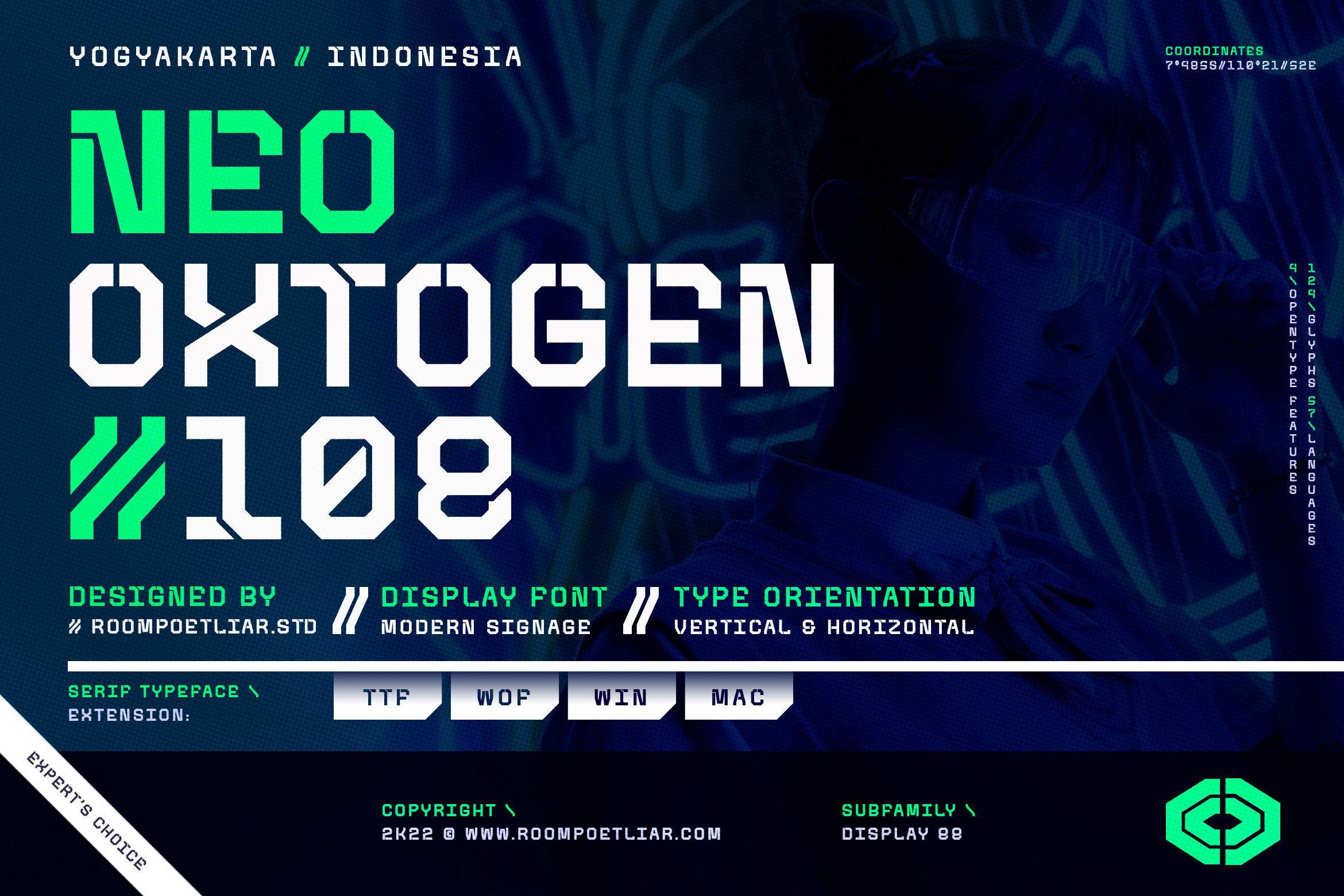
Neo-Oxtogen 108 Display Font
Neo-Oxtogen 108 Display 88 Font is a futuristic font, inspired by sci-fi and technology. Designed the font with a modern feel to achieve the theme. It is also well suited for branding, magazine, marketing design, technology, sci-fi design, bag, poster designs, headlines, typography projects (streetwear, construction, resistance, solidarity, movement, revolution), E-Sport logos, sports jersey text, and much more.
- Localized Forms
- Stylistic Set 01 & 02